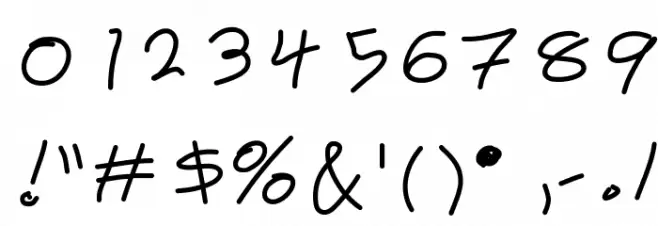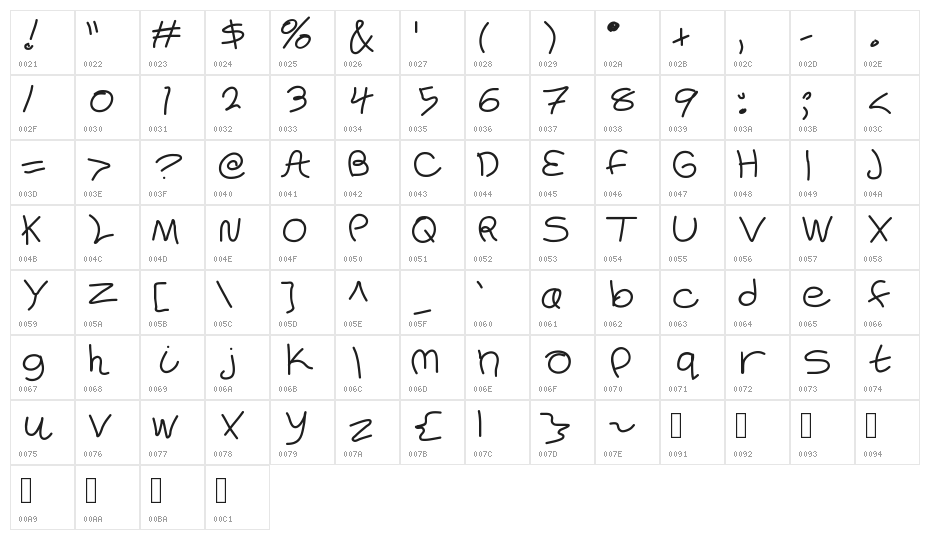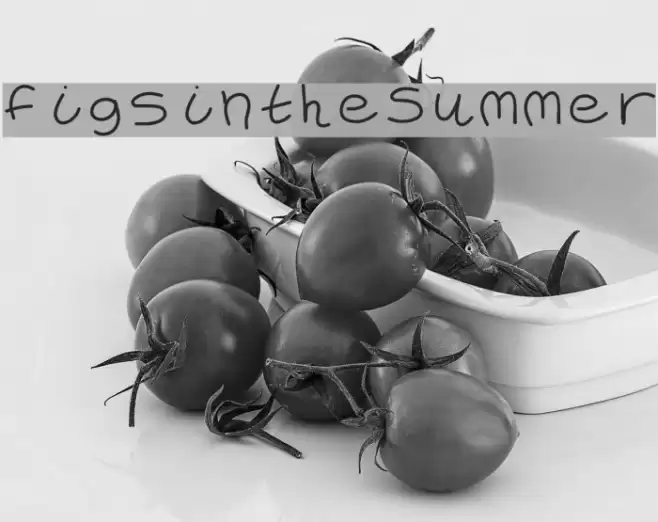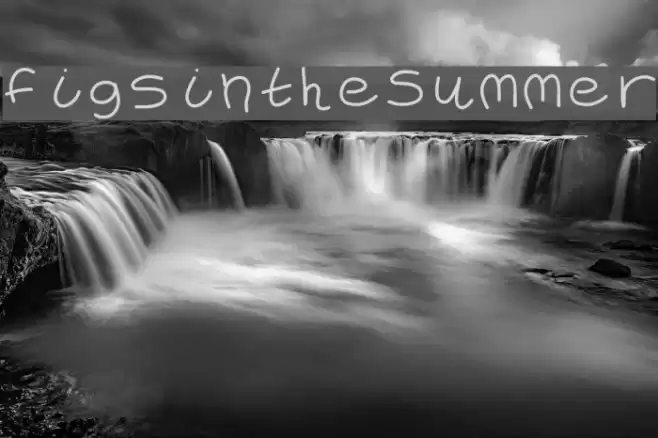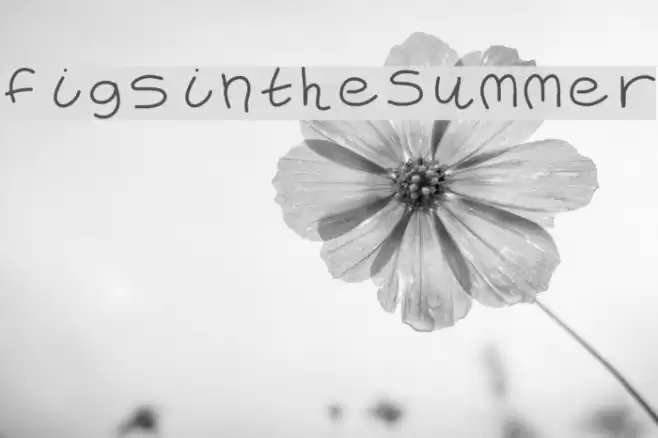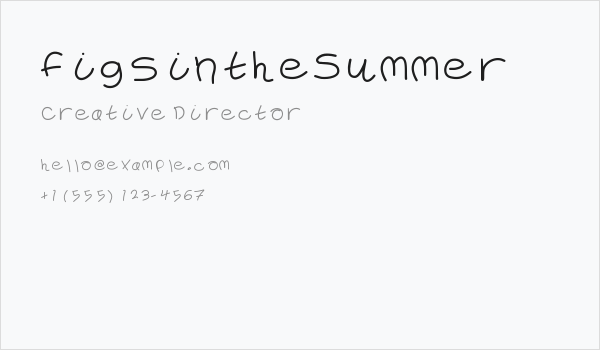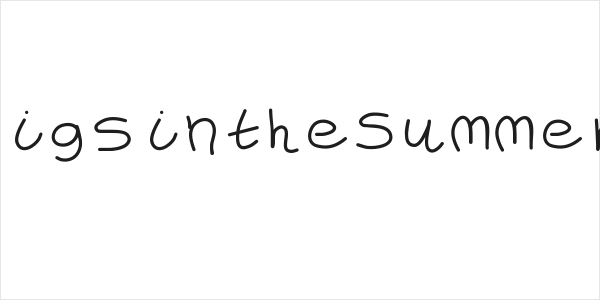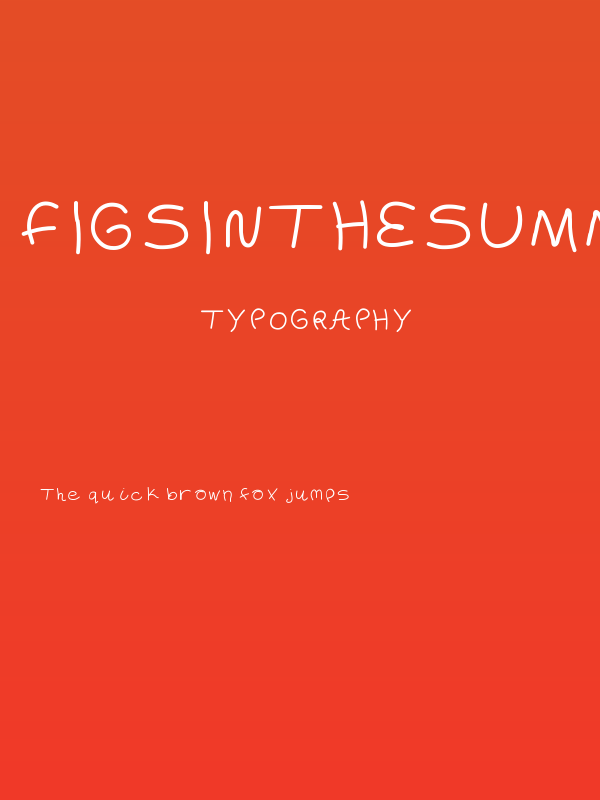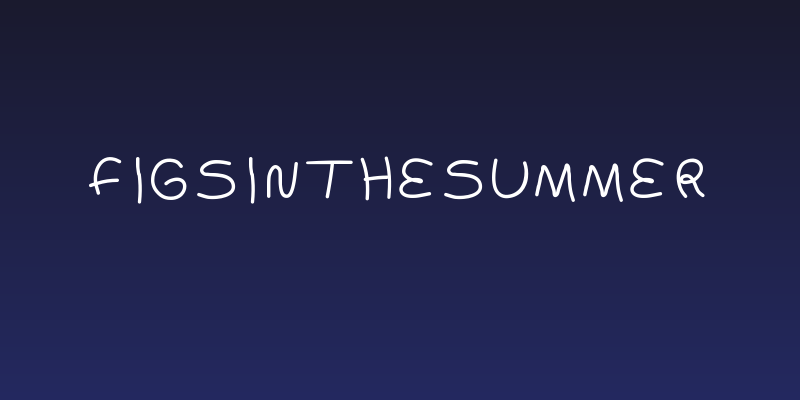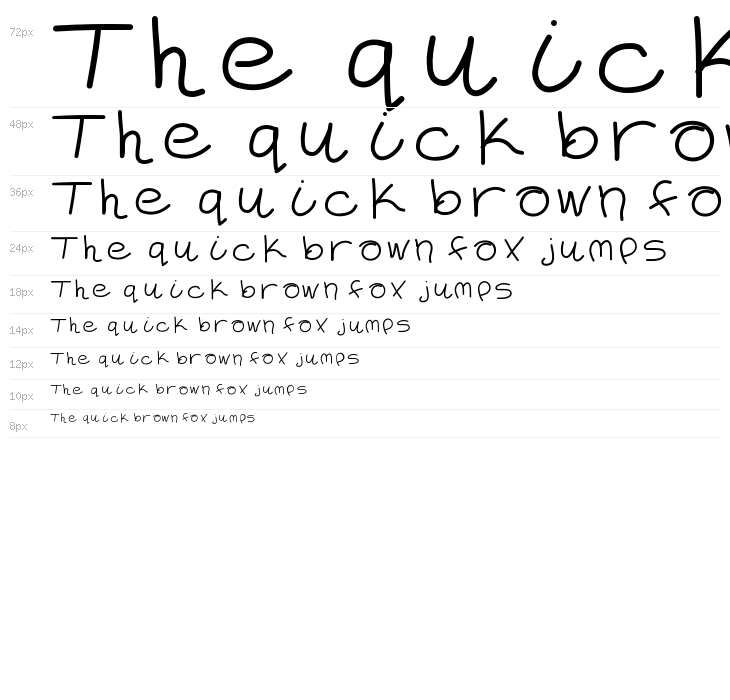
FigsintheSummer Font
FigsintheSummer Description
This font features a playful and casual handwritten style, characterized by its smooth, flowing lines and slightly irregular shapes. The letters have a consistent stroke width, giving it a uniform appearance while maintaining a lively and informal feel. The uppercase and lowercase letters are distinct yet harmoniously blend together, making it suitable for creative and relaxed designs. The numerals and special characters follow the same whimsical style, ensuring a cohesive look across all text elements. This font is ideal for projects that require a personal touch, such as greeting cards, invitations, and informal branding.
| Proposed Projects | Greeting cards, invitations, informal branding, creative projects. |